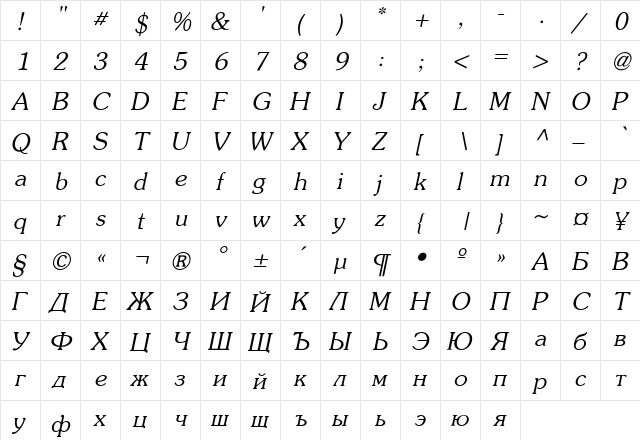
Souvenir Italic
Design Context for Souvenir Typeface
Souvenir offers clean, dependable letterforms without strong stylistic allegiance, making it a practical choice for designers who need flexibility. The slanted form adds forward momentum and visual energy.
Pro Tip: Try Souvenir for annotation and caption copy alongside an upright companion — the contrast in angle creates a dynamic but ordered typographic system.